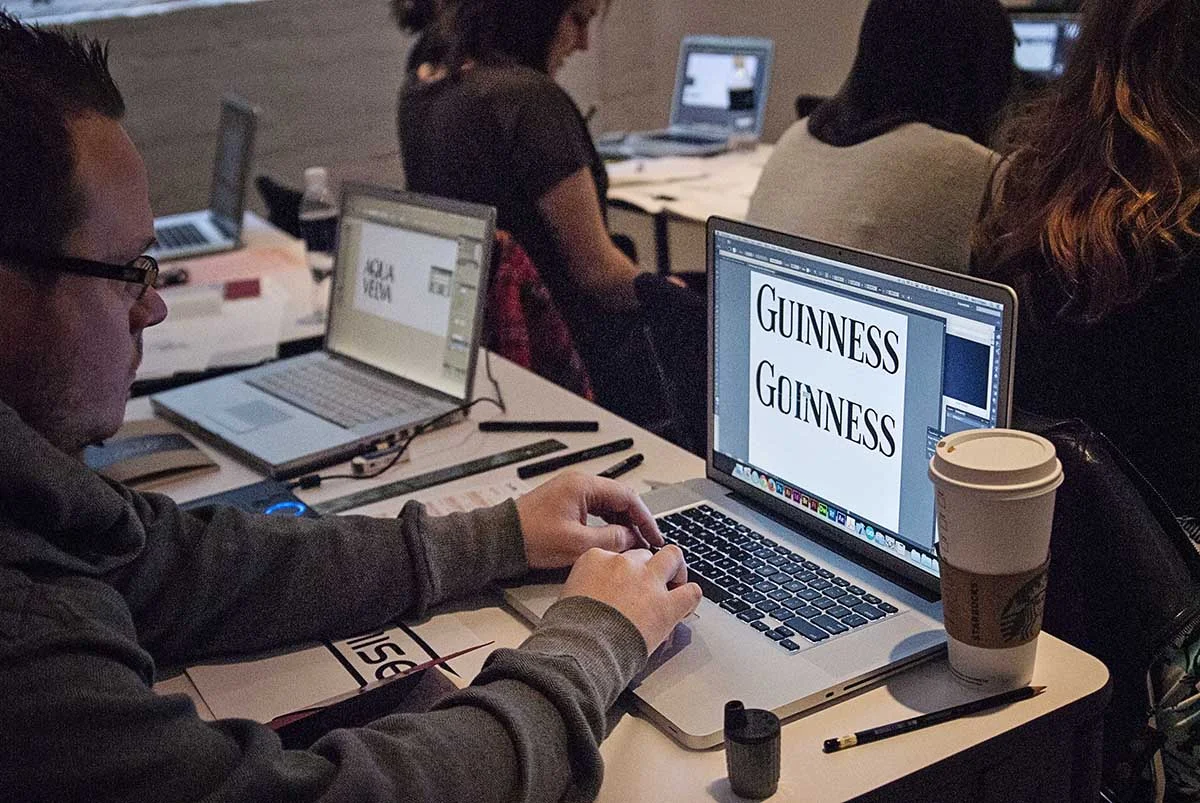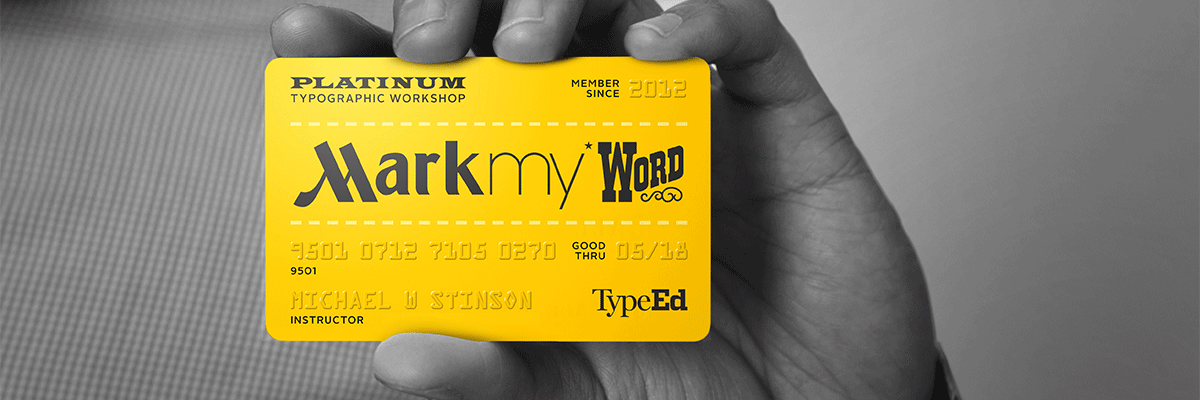
Mark My Word Workshop
Wordmarks tell us stories and help audiences prefer brands, obsess and comfort brands. How? Not by slight-of-hand, but rather slight of hand-rendered characters.
In this workshop, you’ll get a sneak peek into how brand marks have shaped our culture, lifestyle and purchase habits through the study of their characters, weight and overall balance.
You’ll learn the tricks of the trade through drawing letterforms, understand what makes a logotype stand the test of time through design applications, and be ready to take your own show on the road.
Students will learn about the aspects of readability, stroke variation and customizing letterforms and working with digital vectors and bézier curves.